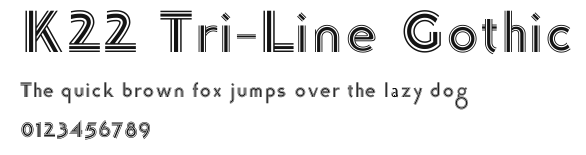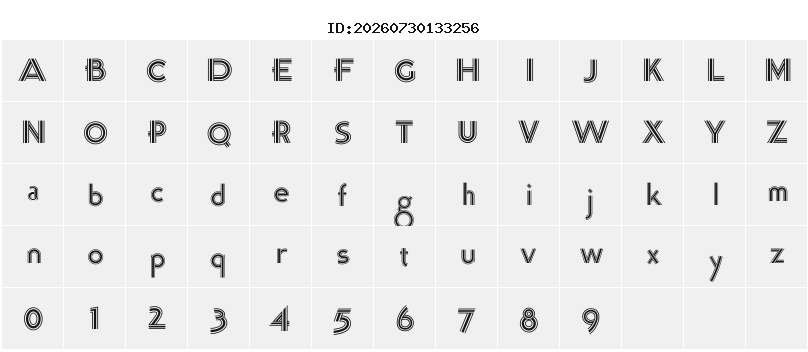
• Font Name: K22 Tri-Line Gothic
• Manufacturer: Toto
• Description: Based on Tri-Line Gothic by Ross F. George from Speedball Textbook 17th Edition, 1956. Toto Kyusi, Pilipinas toto@ispx.com.ph + to22to@gmail.com December 15, 2011
K22 Tri-Line Gothic.ttf is a modern, elegant sans-serif font designed for ultimate readability and visual harmony. Perfect for branding, headlines, web design, and print materials.